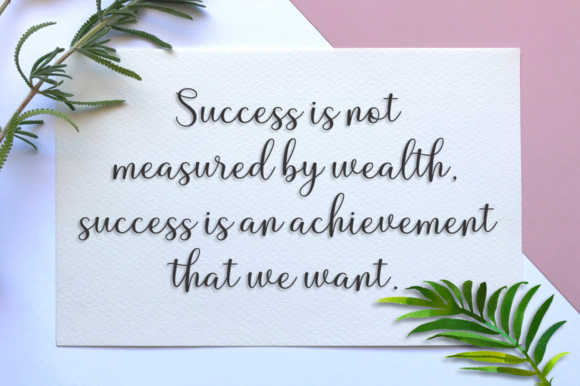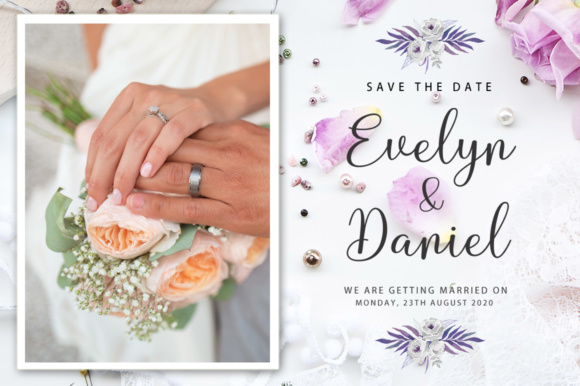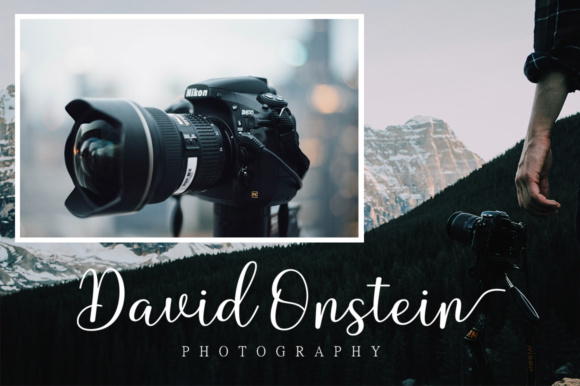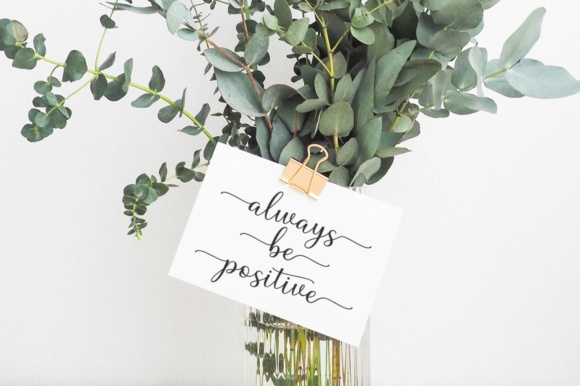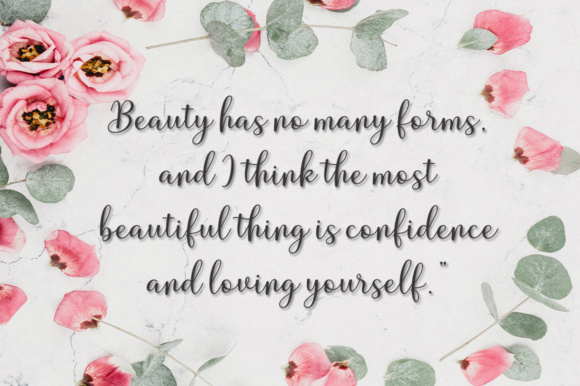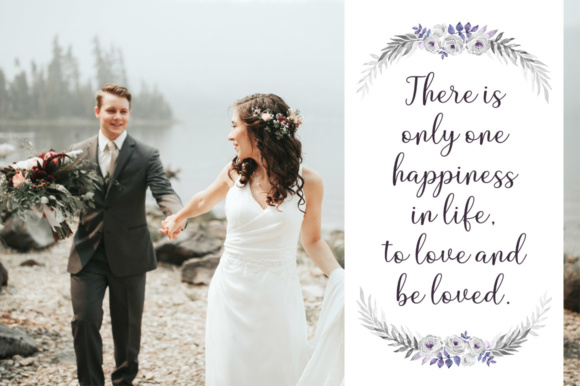
Introducing Beautilla Script Font: Elevate Your Designs with Elegance and Whimsy
Are you on the hunt for a font that embodies both elegance and playfulness? Look no further than the Beautilla Script Font. This sweet calligraphy font is designed to bring a casual yet sophisticated touch to your designs, making it perfect for a wide range of creative projects. From branding and logos to greeting cards and wedding invitations, Beautilla is sure to make your work stand out.
The Unique Charm of Beautilla
What sets Beautilla apart from other script fonts is its dancing baseline, which gives it a dynamic and lively feel. This distinctive characteristic allows your designs to exude a sense of movement and energy, while still maintaining an air of refinement. Whether you’re aiming for a modern, trendy look or a more traditional, elegant aesthetic, Beautilla adapts seamlessly to your creative vision.
The versatility of Beautilla Script Font is one of its most compelling features. Here are just a few examples of how you can use this beautiful font to elevate your designs:
- Branding: Create a lasting impression with your logo or brand identity. Beautilla’s unique blend of casualness and elegance makes it an excellent choice for businesses looking to stand out in their industry.
- Logos: Design a logo that’s both memorable and stylish. The dynamic look of Beautilla ensures that your logo will catch the eye and leave a lasting impression.
- Greeting Cards: Add a personal touch to your greeting cards with Beautilla’s elegant and whimsical script. Perfect for birthdays, anniversaries, and holidays.
- Weddings: Make your wedding invitations, programs, or place cards truly special with Beautilla. Its sophisticated yet playful look is sure to set the tone for an unforgettable celebration.
Why Choose Beautilla Script Font?
With so many fonts available, why should you choose Beautilla for your next project? Here are a few compelling reasons:
- Unique Style: Beautilla offers a distinctive style that’s hard to find in other fonts. Its dancing baseline and casual elegance make it a true standout.
- Versatility: Whether you’re working on a digital project or a print design, Beautilla adapts beautifully to any medium.
- Ease of Use: Despite its sophisticated look, Beautilla is easy to use, even for those who are new to design. Its clean lines and flowing script make it a joy to work with.
- Timeless Appeal: Unlike trendy fonts that may quickly go out of style, Beautilla’s classic elegance ensures that your designs will remain timeless and relevant for years to come.
Beautilla Script Font is more than just a font – it’s a design statement. With its unique blend of elegance and whimsy, it’s the perfect tool for designers and crafters looking to add a touch of sophistication and playfulness to their work. Whether you’re creating branding materials, greeting cards, or wedding invitations, Beautilla is sure to elevate your designs to new heights. So why wait? Download Beautilla today and discover the endless possibilities it has to offer.